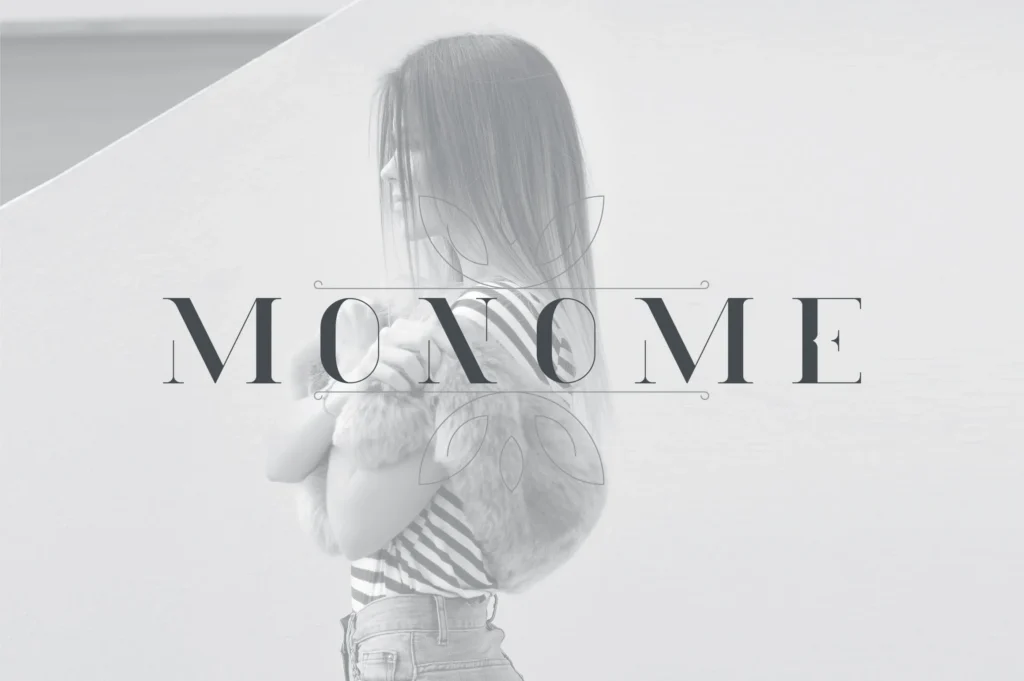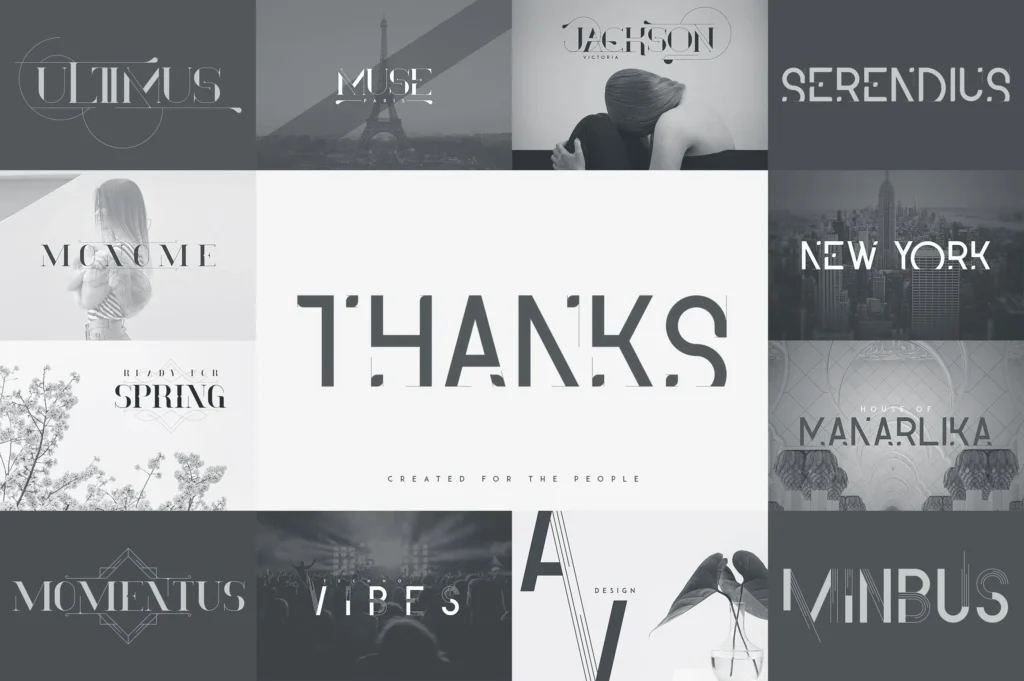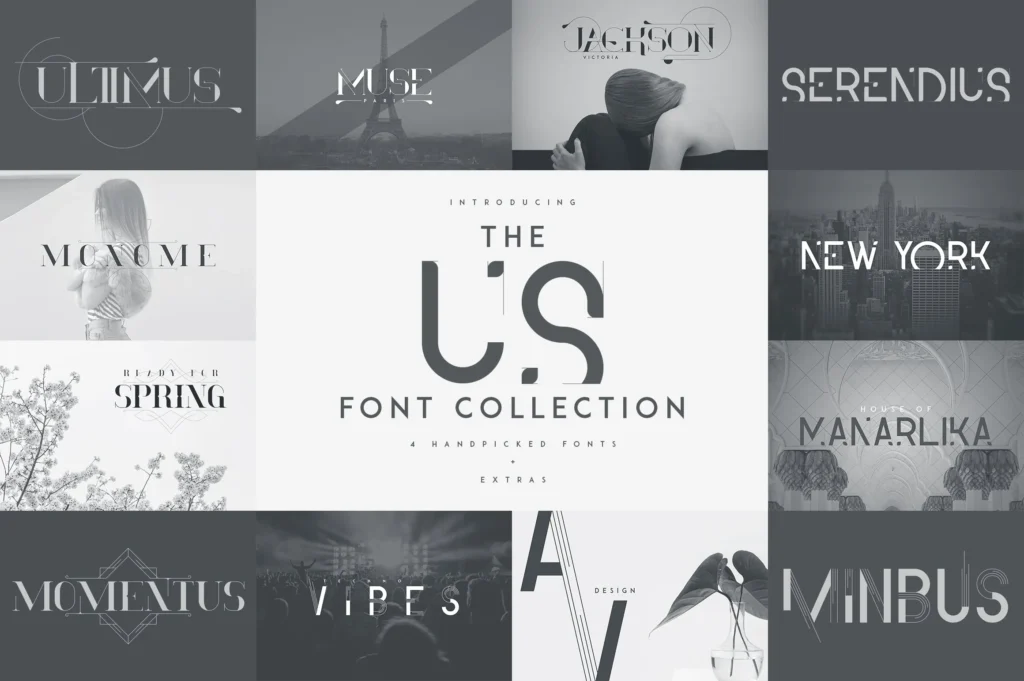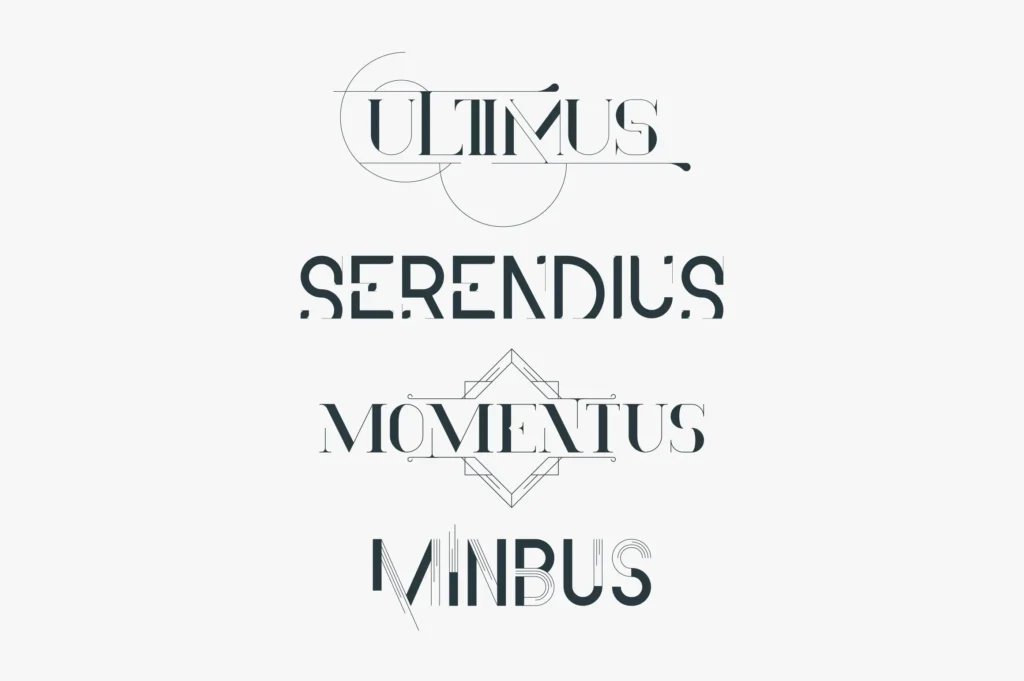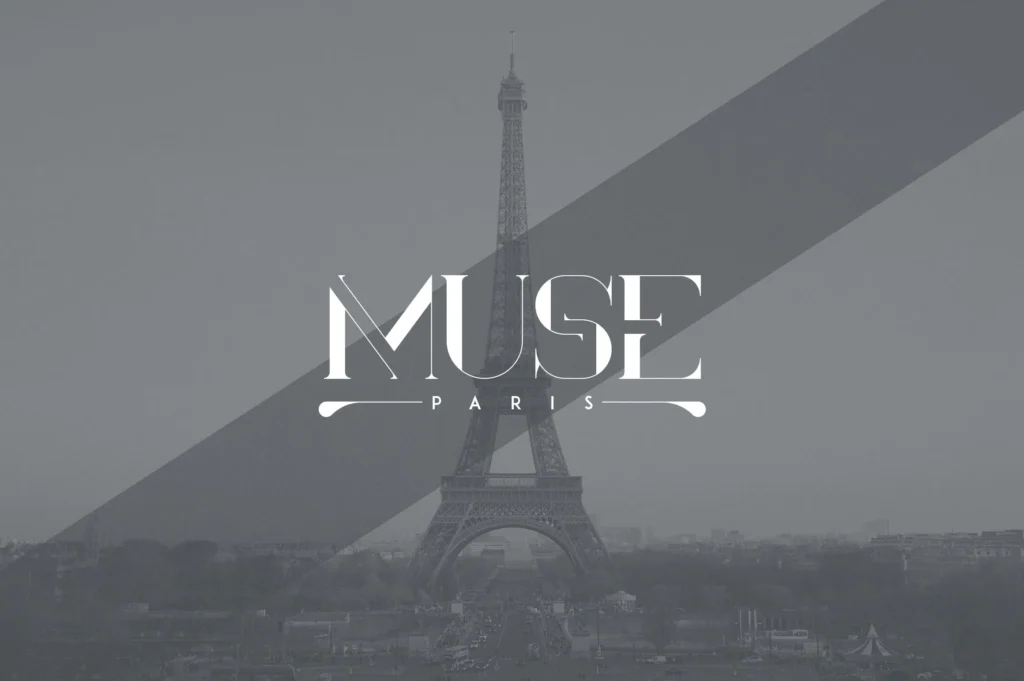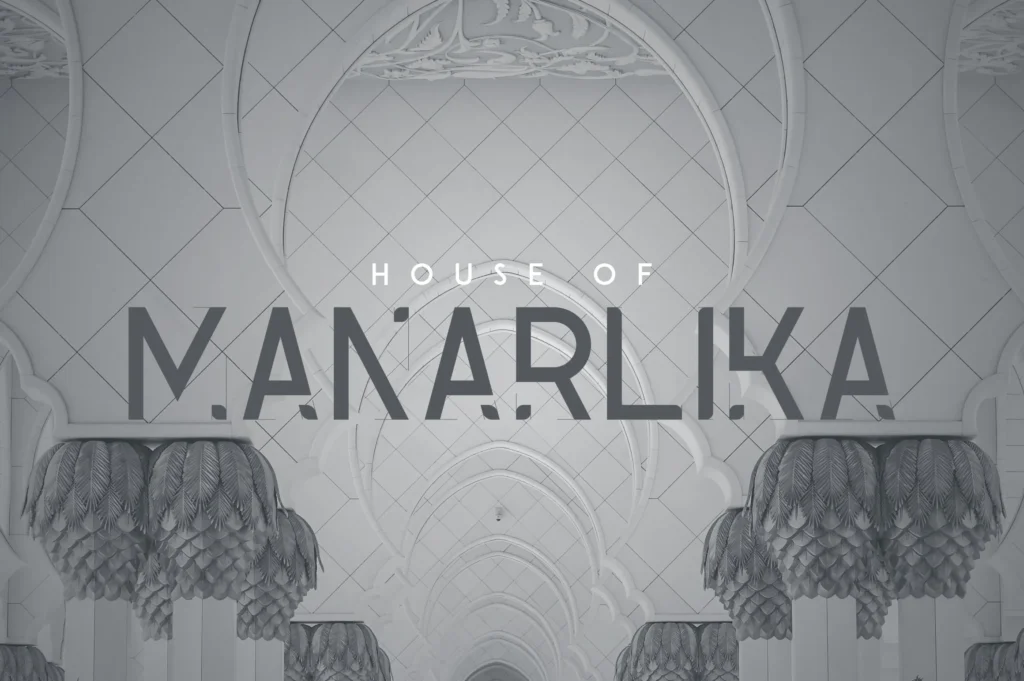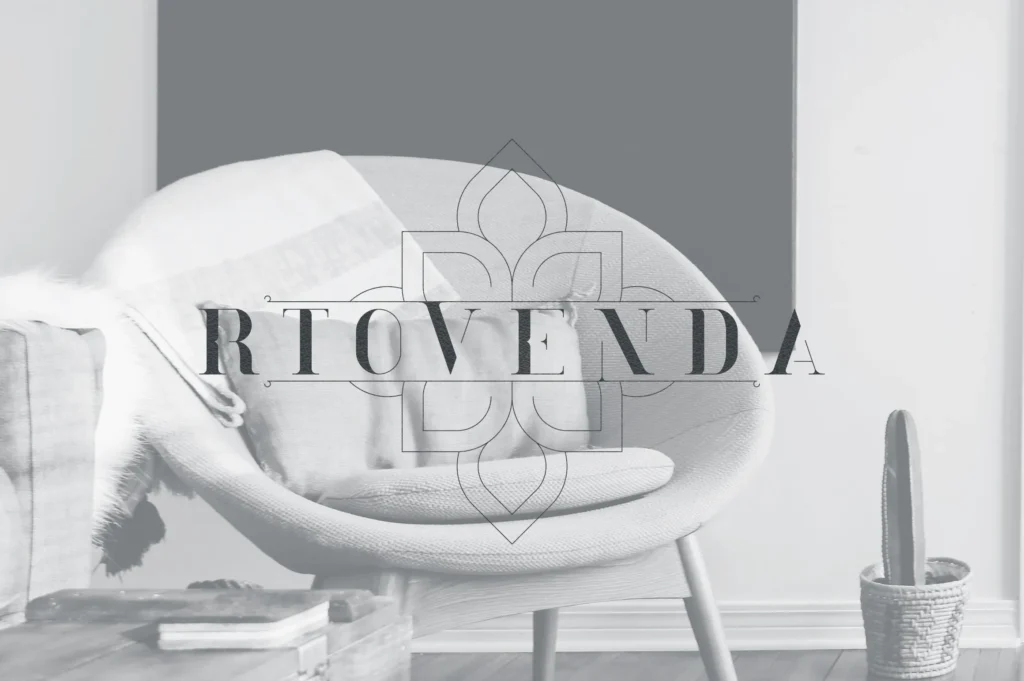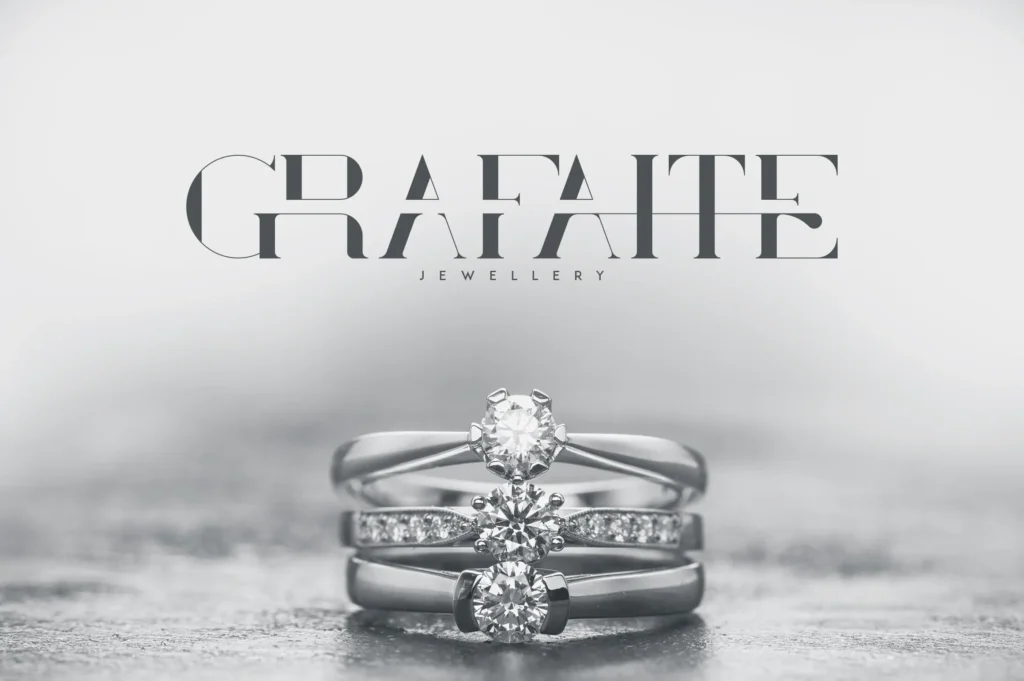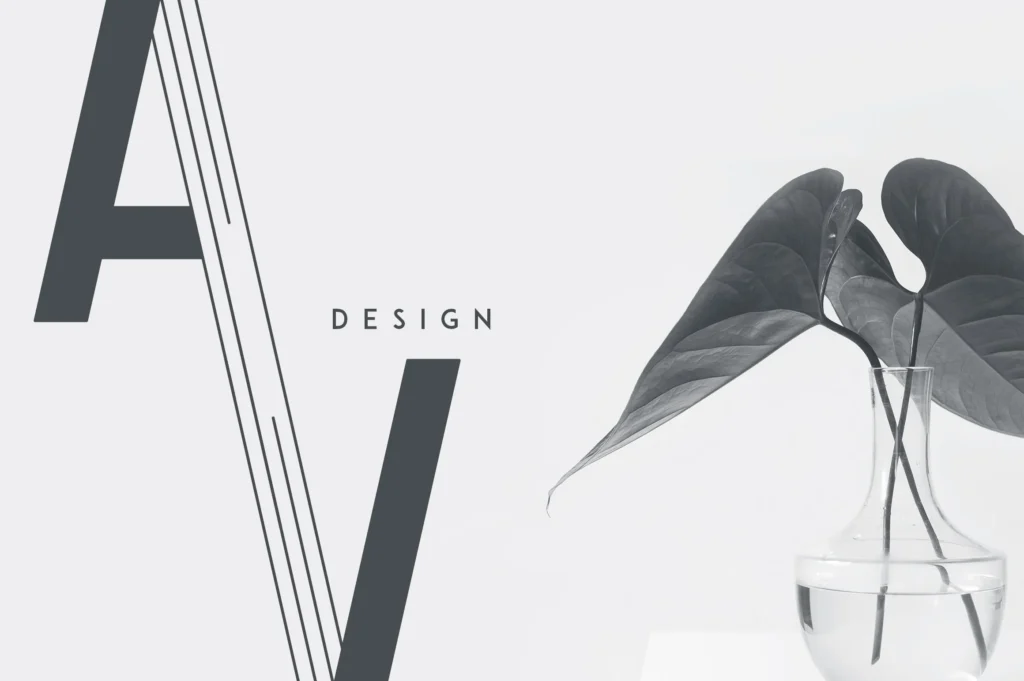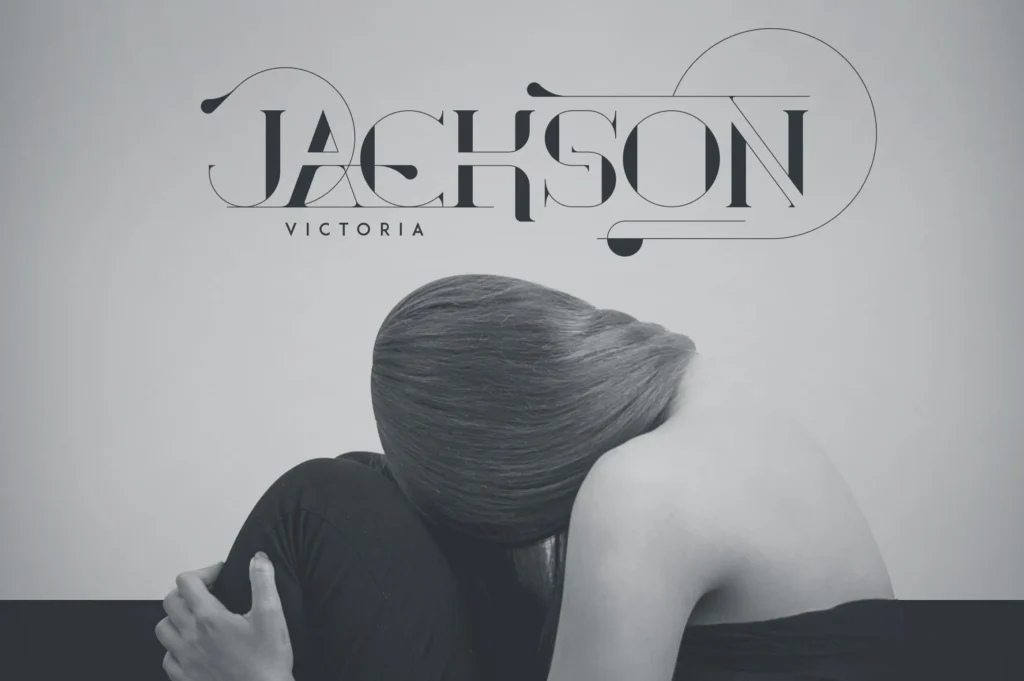
The US Font Collection
Introducing
The US Font Collection
Ultimus serif font + Extras (https://vpcreativeshop.com/products/ultimus-serif-font-extras)
Ultimus is elegant, clean font with 52 ornaments, alternative and ligature glyphs, and multilingual support.
Uppercase,lowercase, numeral,punctuation & Symbol
Clean
Multilingual support
Alternative glyphs
Ligatures
52 Ornaments
Serendius – Display font (https://vpcreativeshop.com/products/serendius-display-font)
Serendius is elegant, odd font with ligature glyphs and multilingual support.
Uppercase,lowercase, numeral,punctuation & Symbol
Clean
Multilingual support
Ligatures
Minbus – Display font (https://vpcreativeshop.com/products/minbus-display-font)
Minbus is futuristic font with alternative glyphs and multilingual support.
Uppercase,lowercase, numeral,punctuation & Symbol
Clean
Multilingual support
Alternatives
Momentus serif font + Extras (https://vpcreativeshop.com/products/momentus-serif-font-extras)
Momentus is elegant, clean font with 26 ornaments, 26 emblems, alternative and ligature glyphs, and multilingual support.
Uppercase,lowercase, numeral,punctuation & Symbol
Clean
Multilingual support
Alternative glyphs
Ligatures
26 Ornaments
26 Emblems